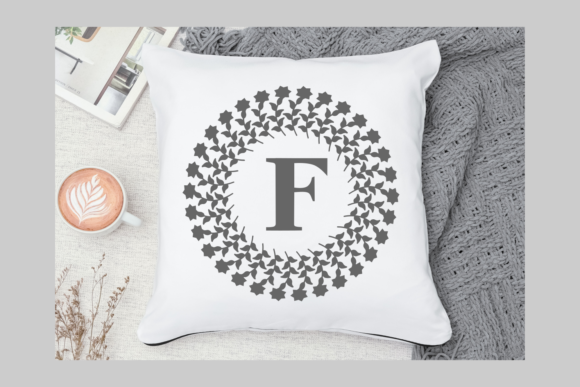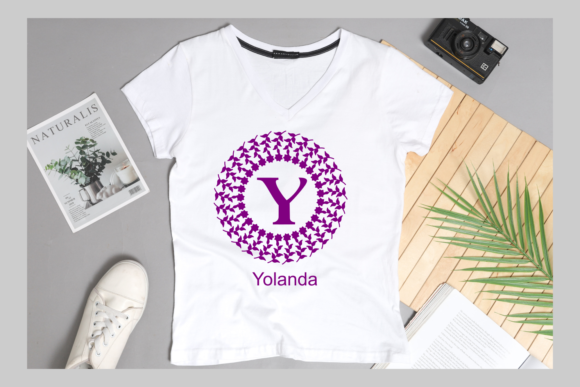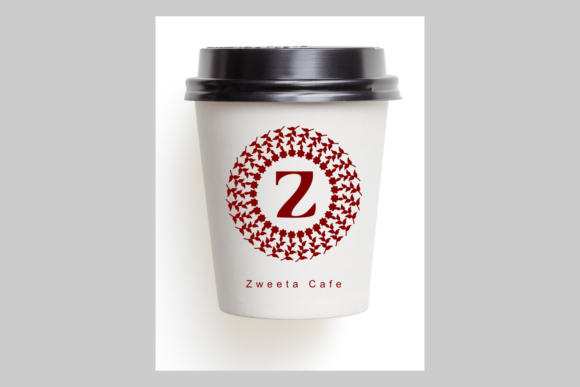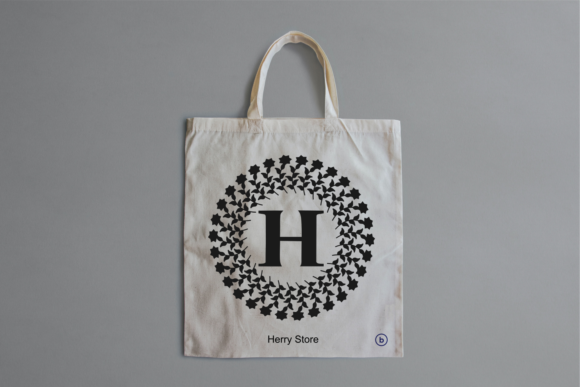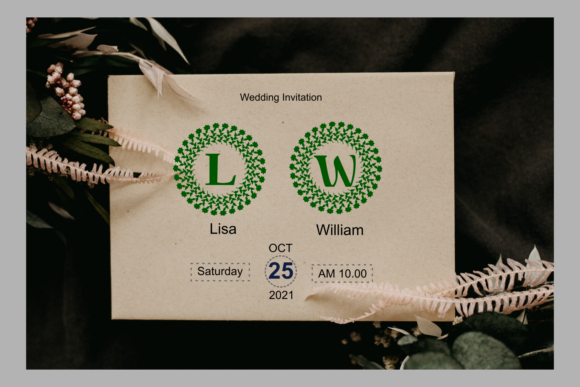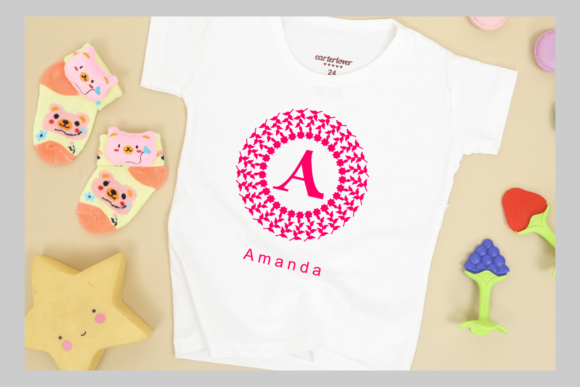
Introduction to Monogram Meteor Garden Font Font
Fonts play a crucial role in design, and the Monogram Meteor Garden Font font is a typeface that brings both character and versatility to any project. Whether you’re working on a branding project, a website, or a print design, the Monogram Meteor Garden Font font offers a unique style that can elevate your work.
Monogram Meteor Garden is a highly detailed and beautiful decorative font.
Add this lovely-looking font to each of your love letters, wedding invitations, or favorite design ideas, and you will be astounded by the outcome .
Key Features of Monogram Meteor Garden Font Font
Why Choose Monogram Meteor Garden Font Font?
The Monogram Meteor Garden Font font is more than just a typeface – it’s a design tool that helps you communicate your message with style and clarity. Its unique character set and versatile design make it suitable for a wide range of applications, from elegant invitations to bold headlines.
With its carefully crafted letterforms and balanced proportions, the Monogram Meteor Garden Font font ensures readability and visual appeal across all mediums.
What makes Monogram Meteor Garden Font font special?
The Monogram Meteor Garden Font font stands out with its unique design, exceptional readability, and versatility across various design applications.